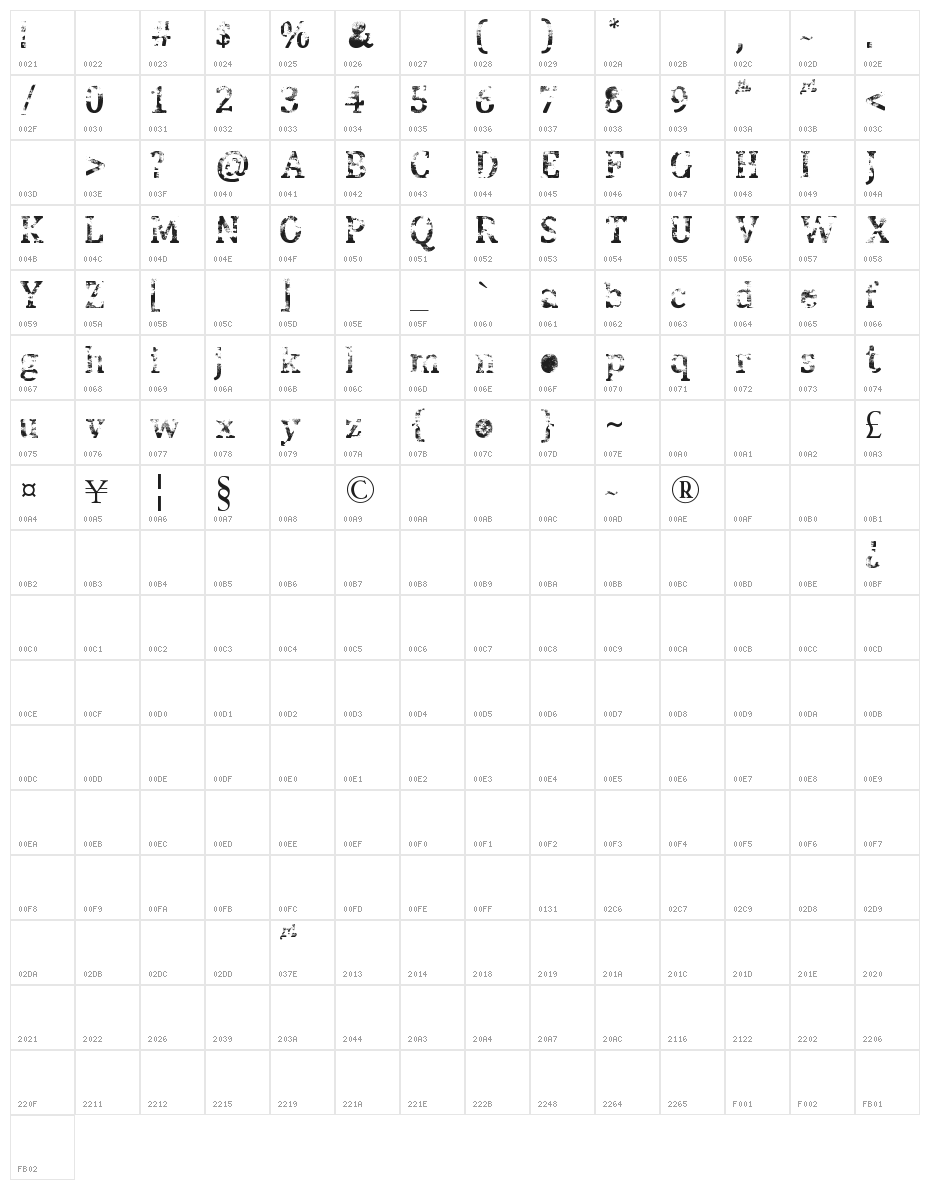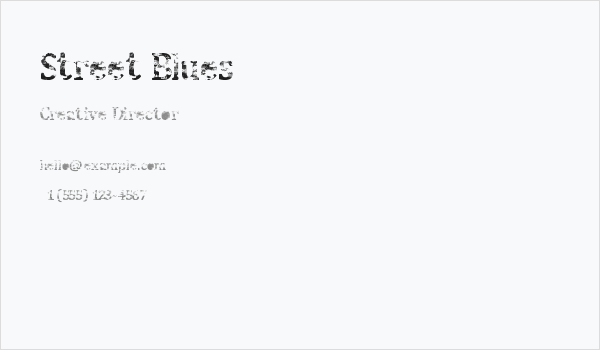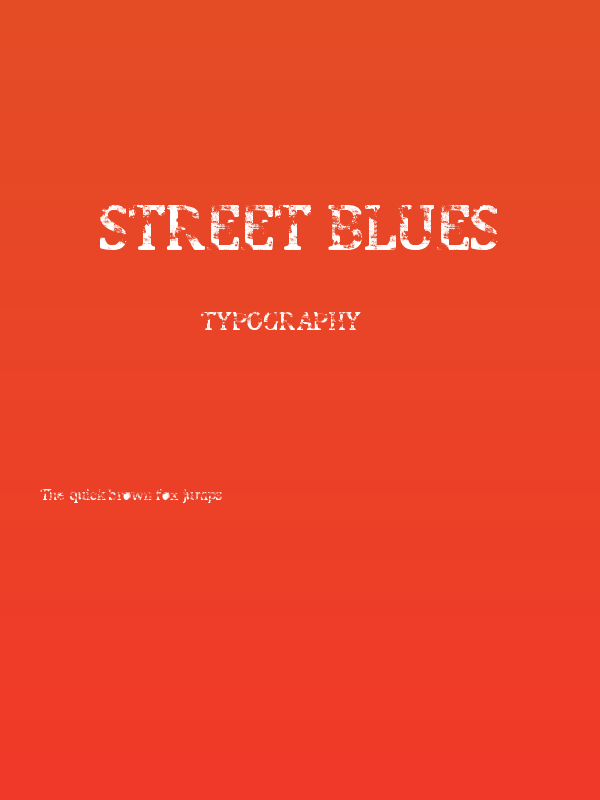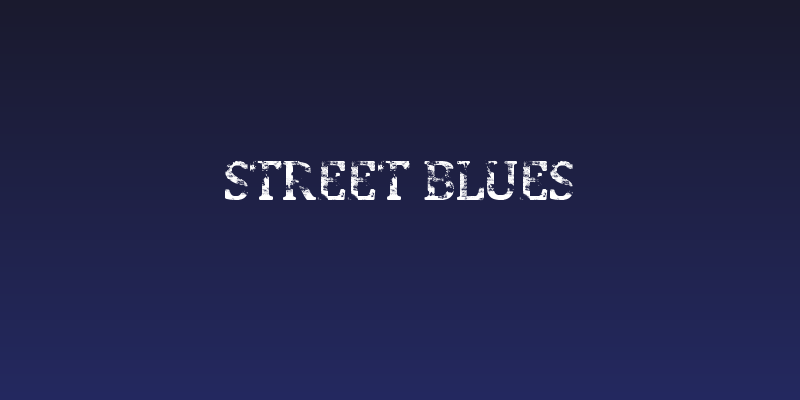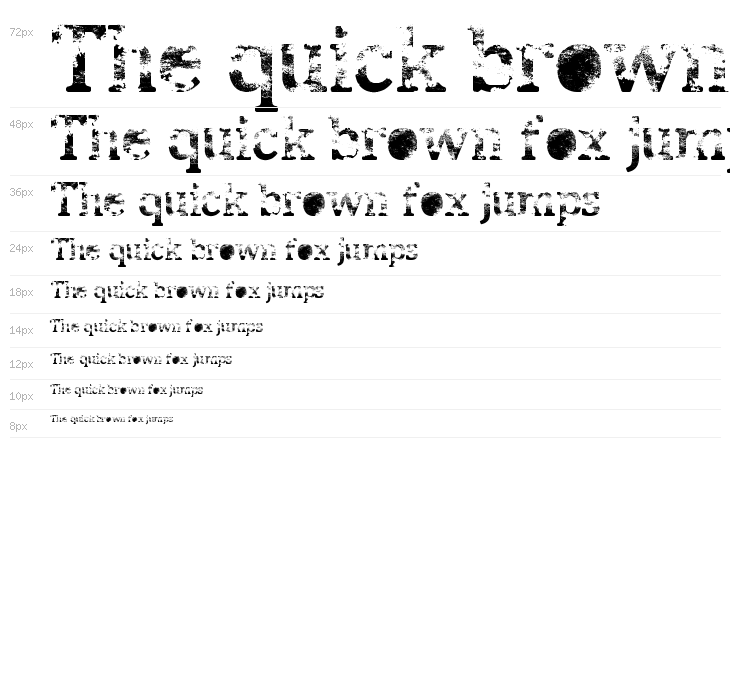
Street Blues Font
Street Blues Description
This font features a distressed, grunge style with a textured appearance that mimics the look of weathered street art or worn-out stencils. The characters are bold and impactful, with irregular edges and a rough, gritty texture that adds a sense of urban decay and rawness. The uppercase and lowercase letters maintain a consistent style, while the numbers and special characters complement the overall aesthetic. This font is perfect for projects that require a rugged, edgy look, such as music album covers, streetwear branding, or urban-themed posters.
| Overall Style | Grunge, Urban, Distressed |
| Proposed Projects | Ideal for music album covers, streetwear branding, urban-themed posters, and graffiti-inspired designs. |